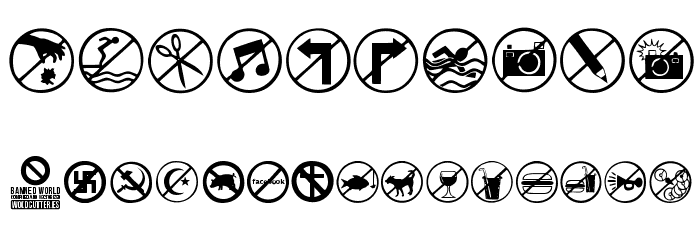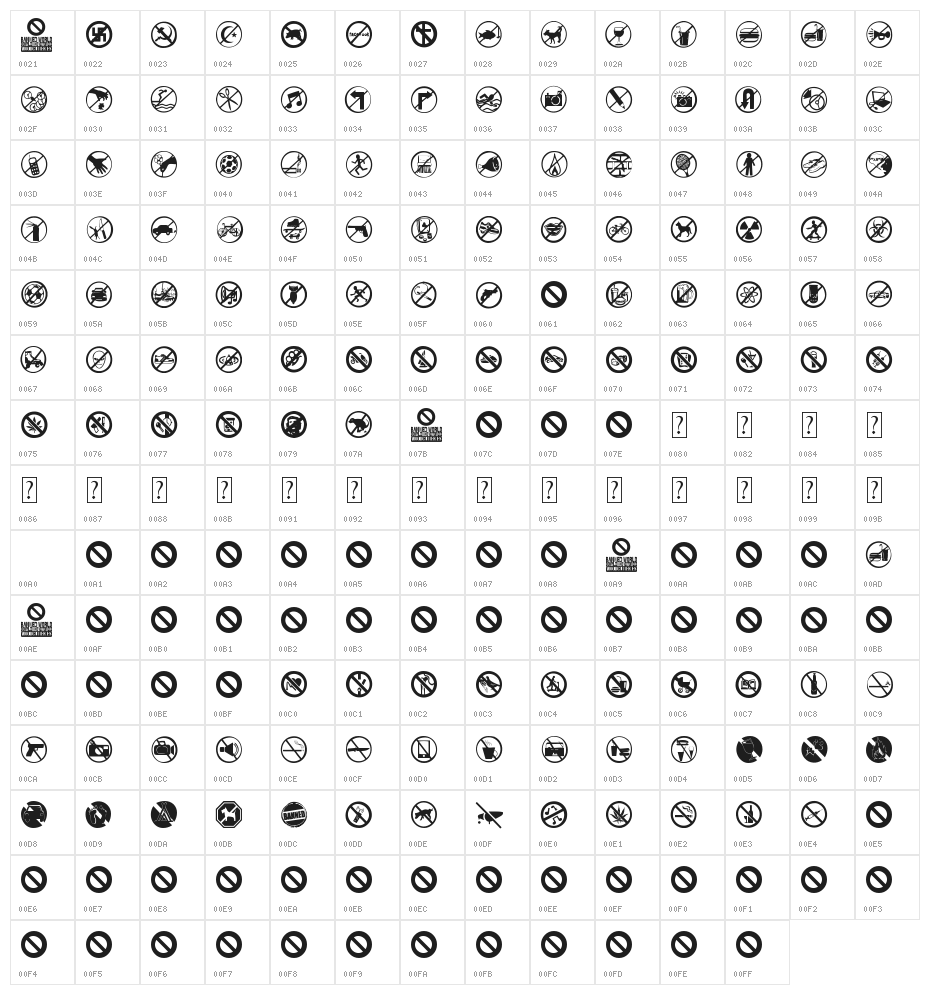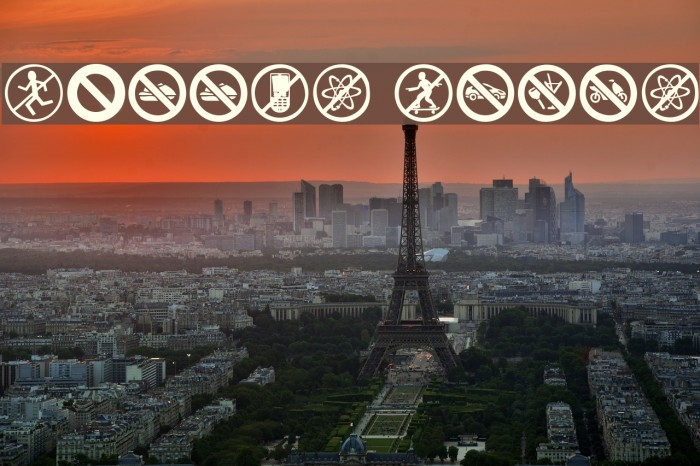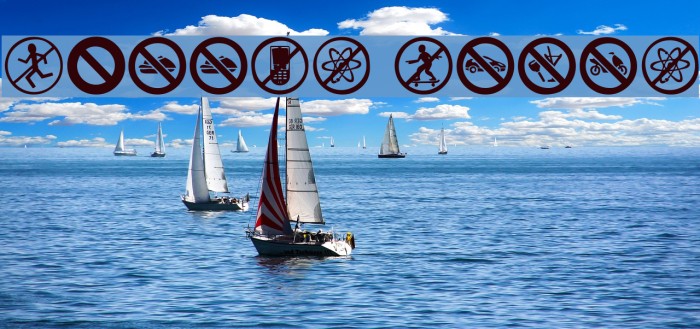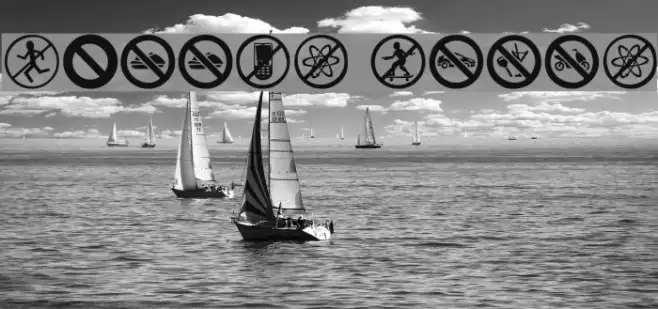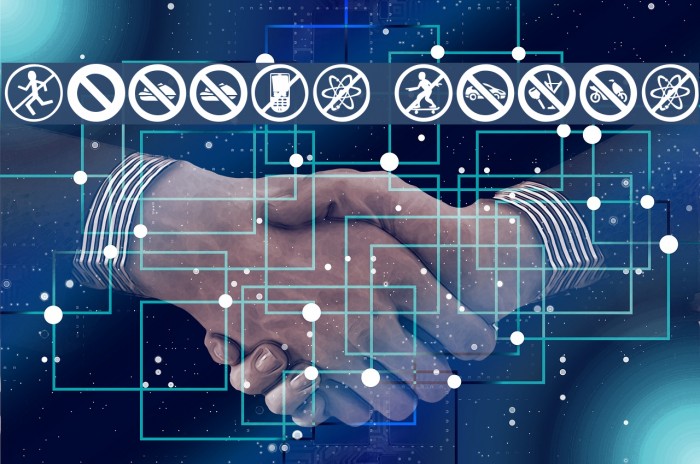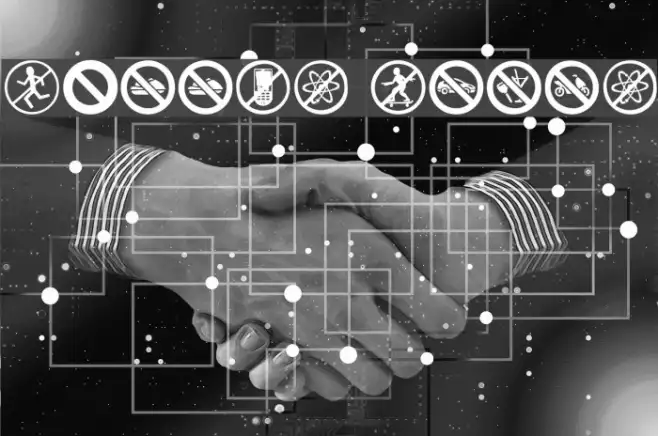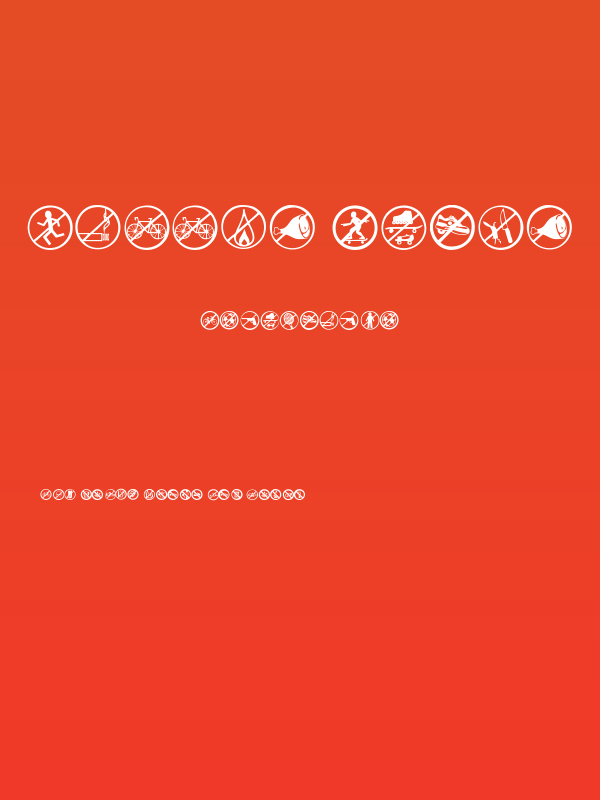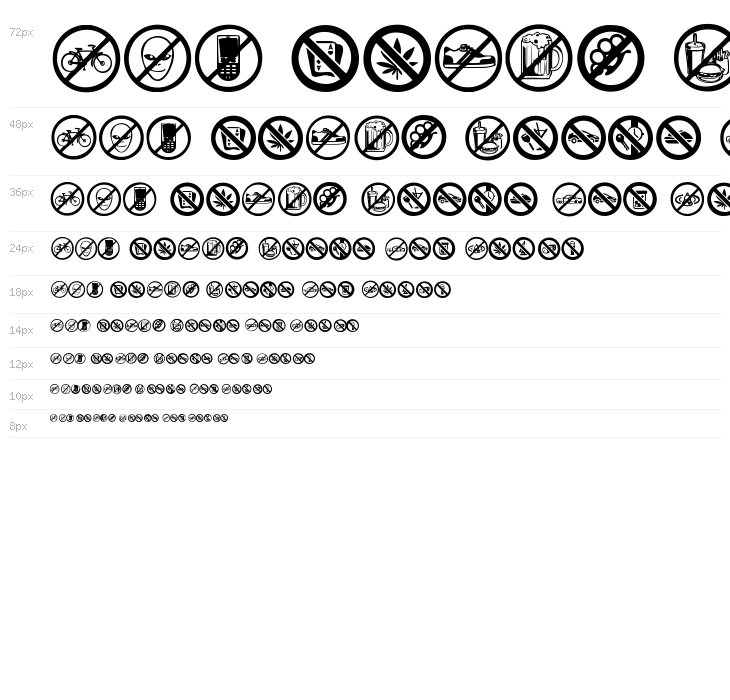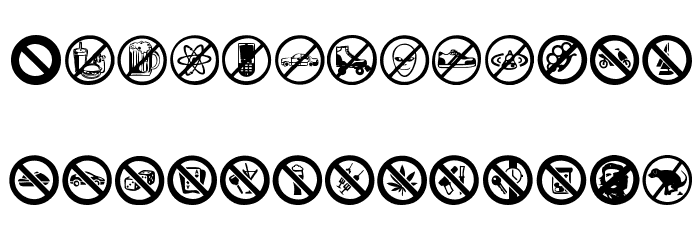
Banned World Font
Banned World Description
A collection of bold, high-contrast pictograms inside thick black circles with diagonal slashes, representing various prohibitions. The icons are simple, geometric, and highly legible, designed for clear communication in signage.
| Overall Style | Modern, Functional, Pictographic |
| Use Case | Signage, Infographics, Instructional materials |
| Proposed Projects | Public safety signage, instructional graphics, infographics, wayfinding systems. |